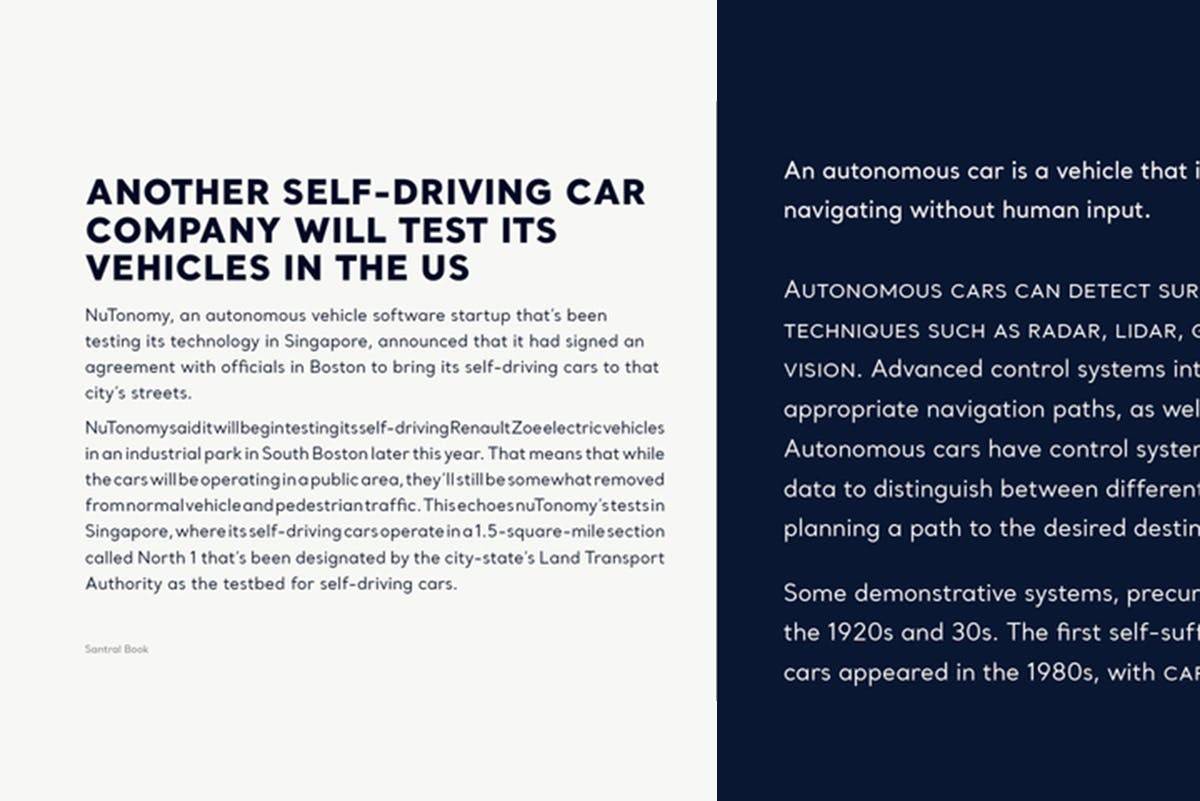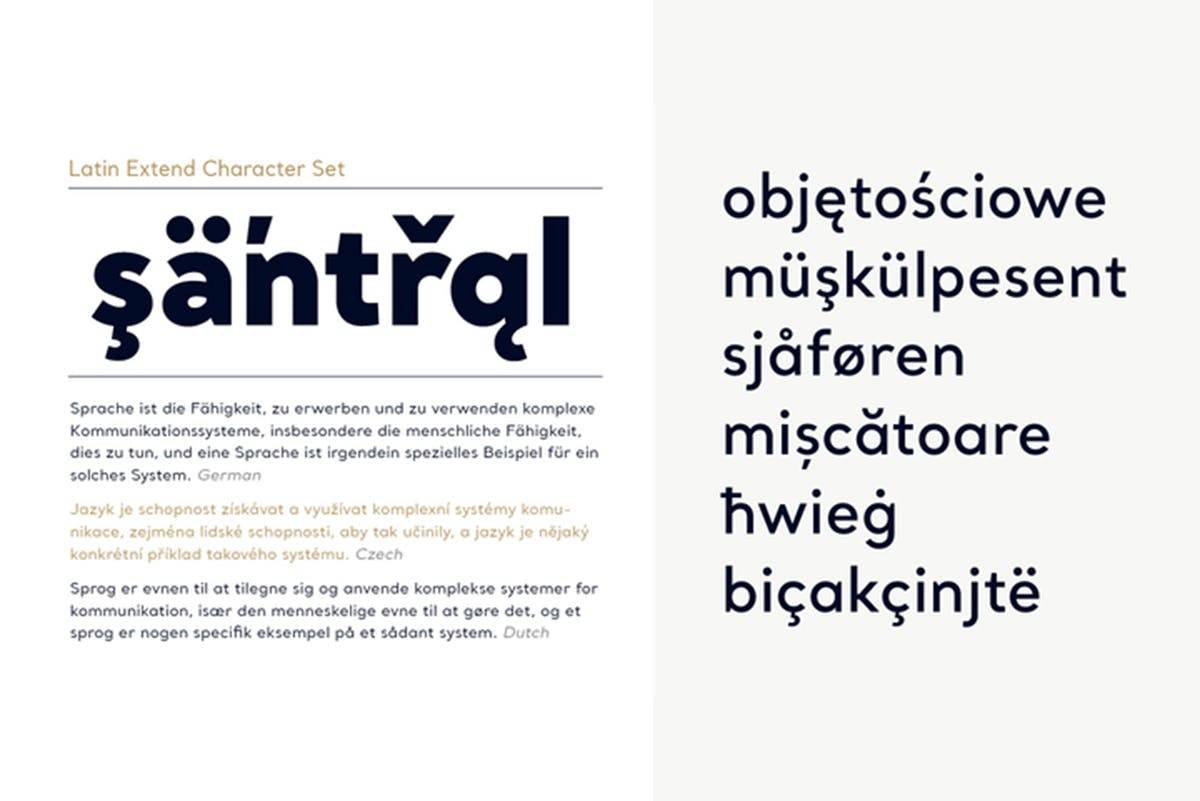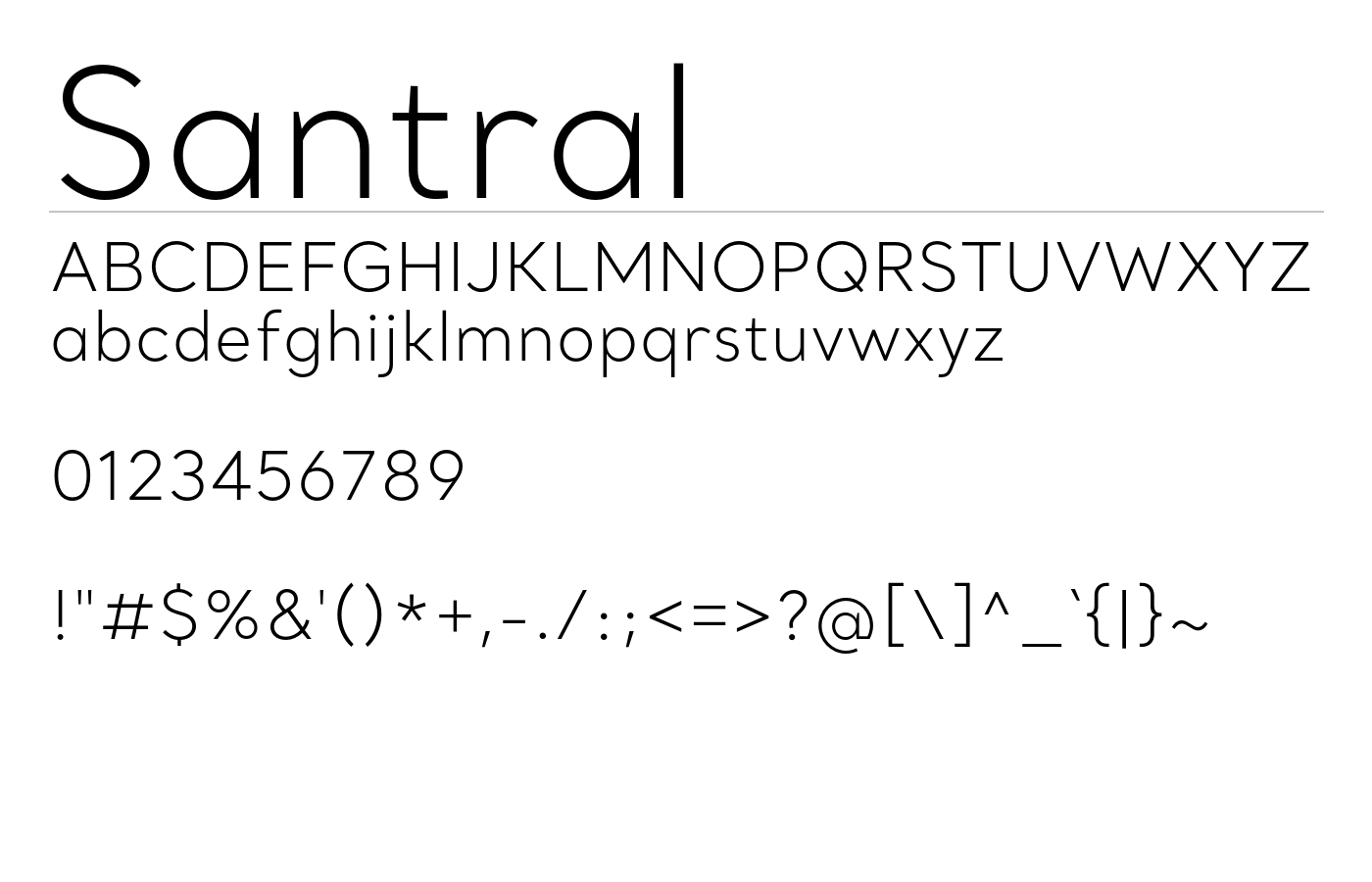
Santral Family Demo is a modern, clean sans serif font with a light weight and elegant, rounded letterforms that offer excellent readability. Its geometric shapes combined with a slightly tall x-height give it a contemporary, fresh feel, making it ideal for use in branding, editorial design, and digital interfaces where clarity and sophistication are key. This font’s simple yet distinctive style communicates professionalism and approachability, perfect for modern, minimalist projects.
Santral Family Demo
About Santral Family Demo
| Designer | Taner Ardalı |